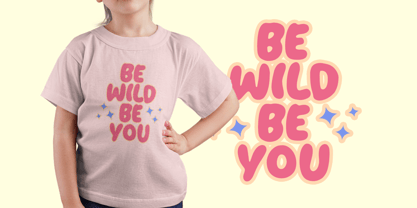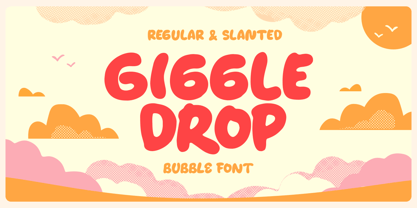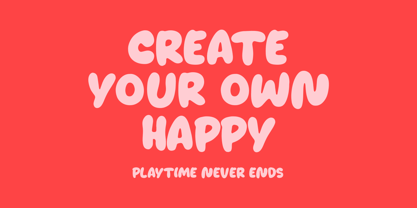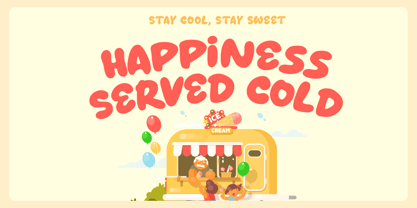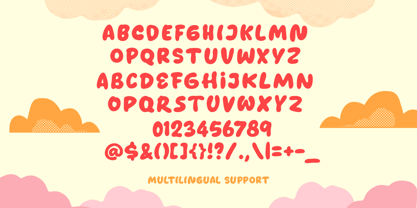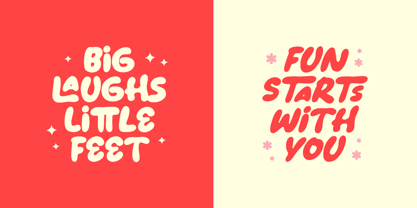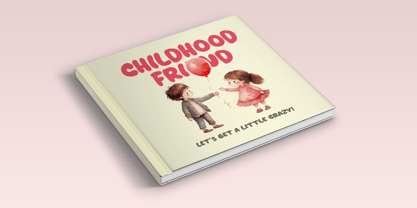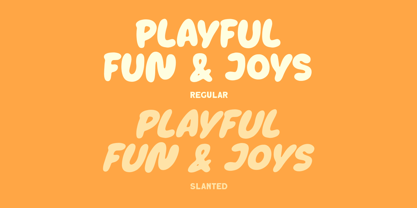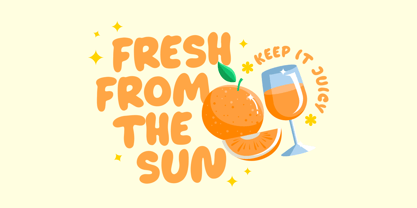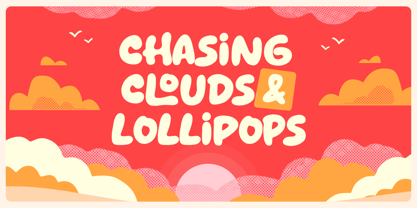
Giggle Drop
by Letterhend
The Giggle Drop Font Family was designed by Hendry Juanda and published by Letterhend. Giggle Drop contains 2 styles and family package options. More about this family
Giggle Drop is a playful bubble font that bursts with joy and friendliness. Its rounded, chunky letterforms and smooth curves bring a fun and cheerful energy to any design. Available in both regular and slanted styles, this font is perfect for children’s products, posters, packaging, and anything that needs a splash of whimsy. Features : Uppercase & lowercase Numbers and punctuation Multilingual Support PUA encoded
Designers: Hendry Juanda
Foundry: Letterhend